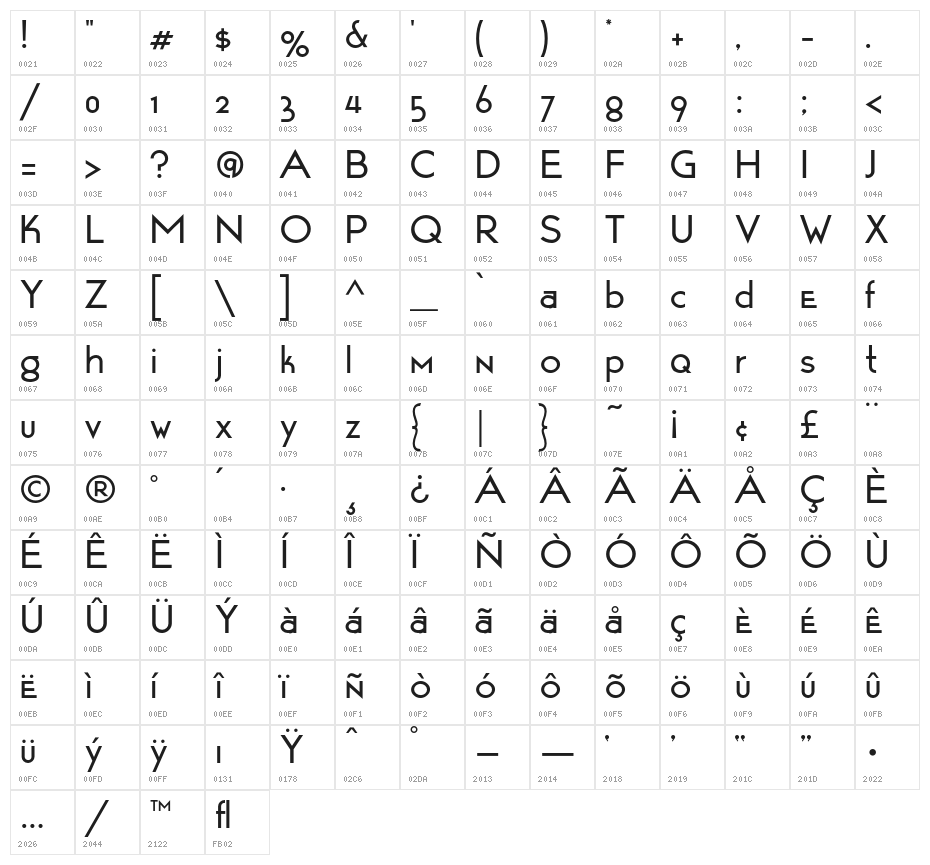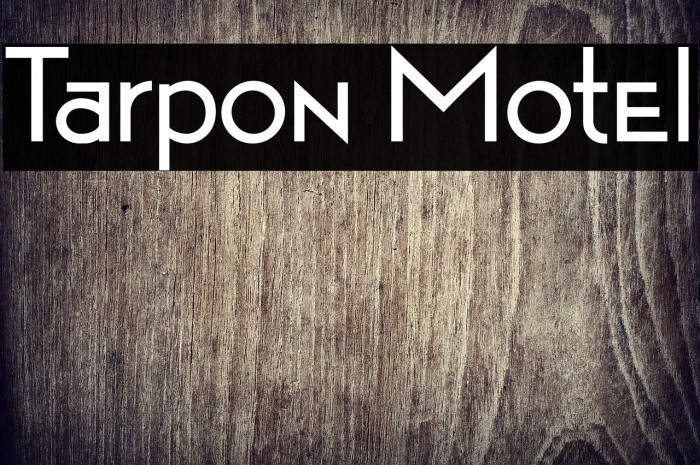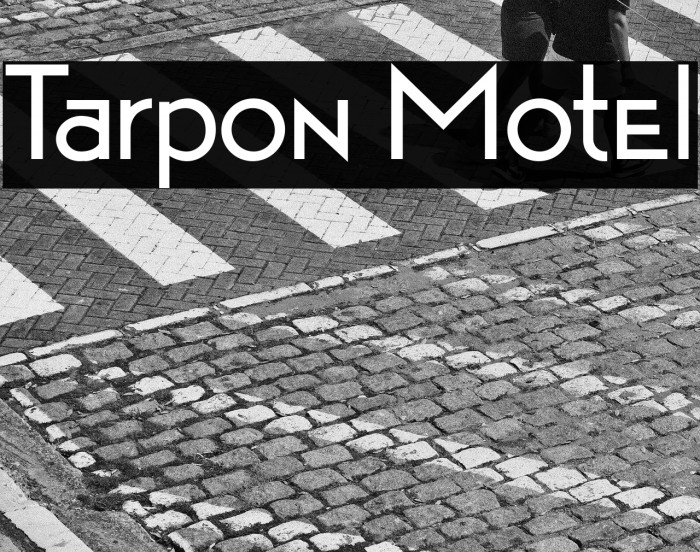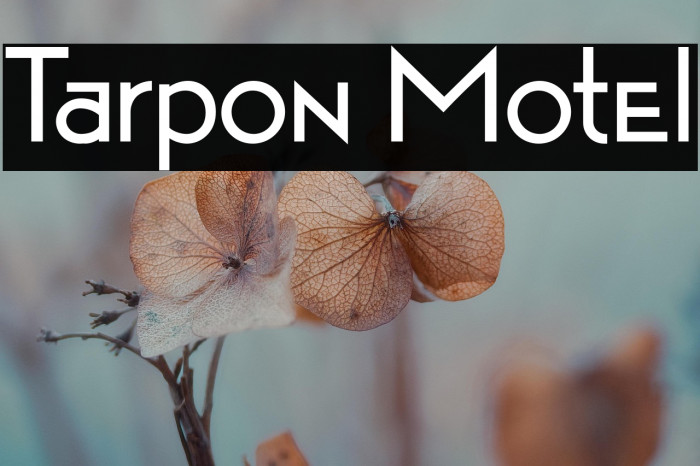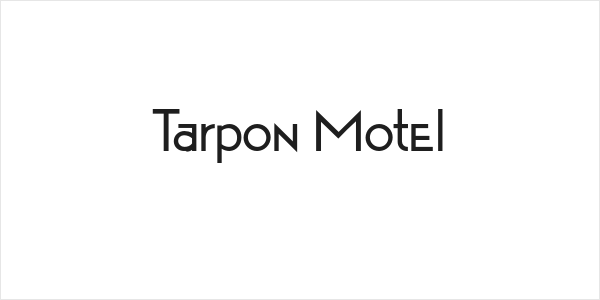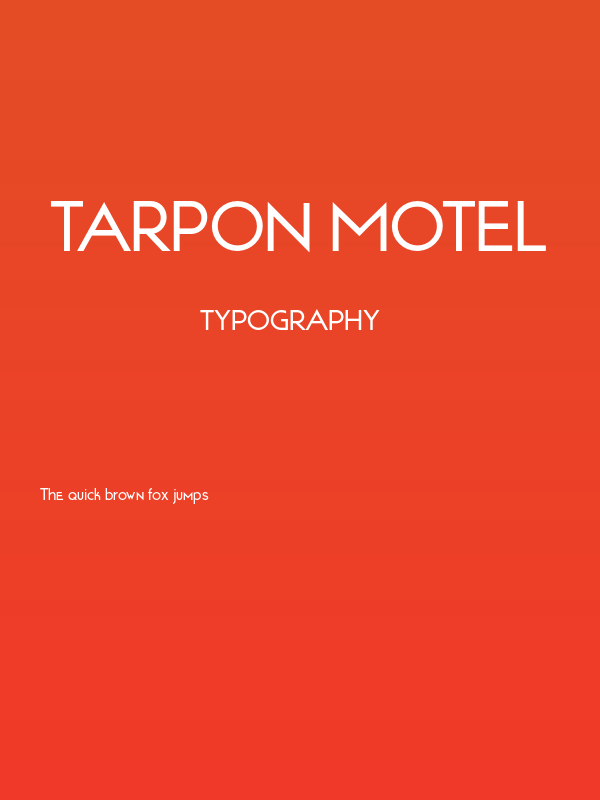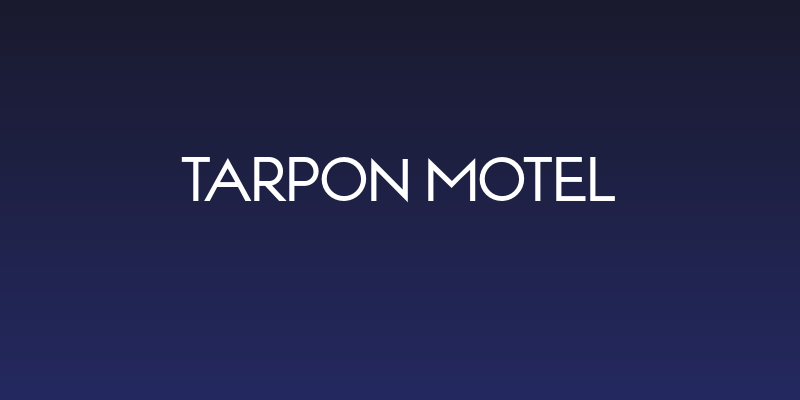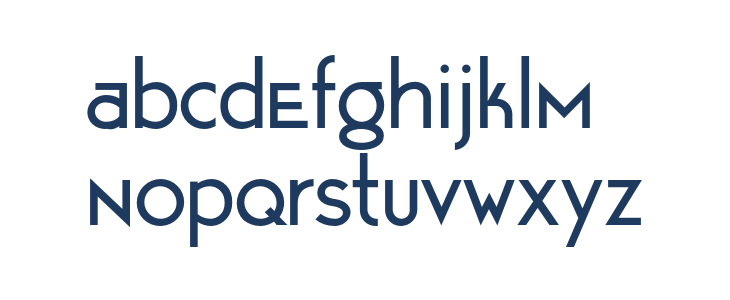
Tarpon Motel Font
Tarpon Motel Description
This font features a clean and modern sans-serif design with geometric influences. The characters are well-balanced, offering a harmonious blend of straight lines and subtle curves. The uppercase letters are bold and assertive, while the lowercase letters maintain a friendly and approachable appearance. The numerals are consistent with the overall style, providing clarity and readability. Special characters are distinct and integrate seamlessly with the rest of the typeface. The font's simplicity and elegance make it versatile for various design applications.